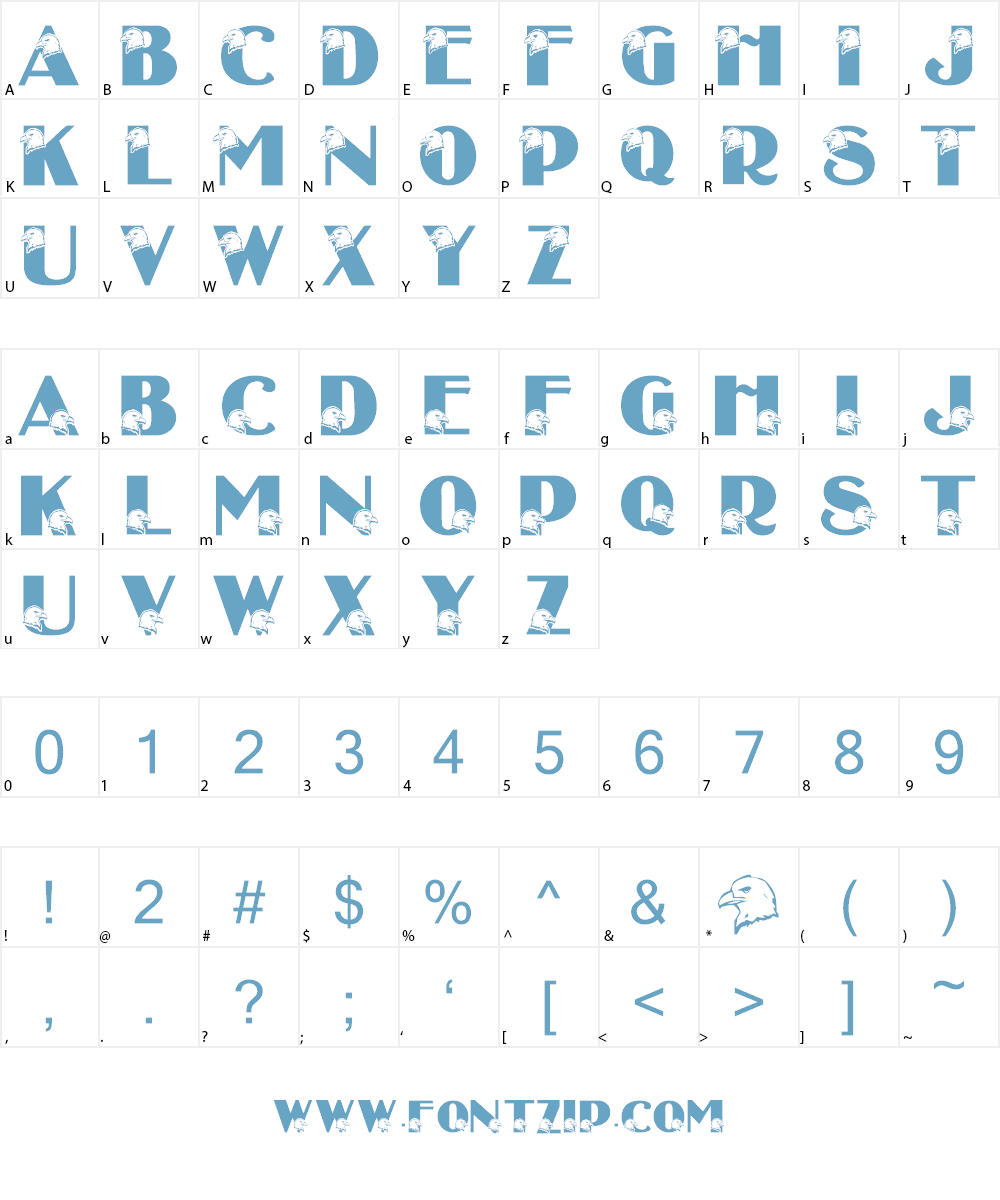
This font is a tribute to the United States of America and all that she
stands for. And to the victims and families of the victims of the
terrorist attack on America on 11 September 2001.